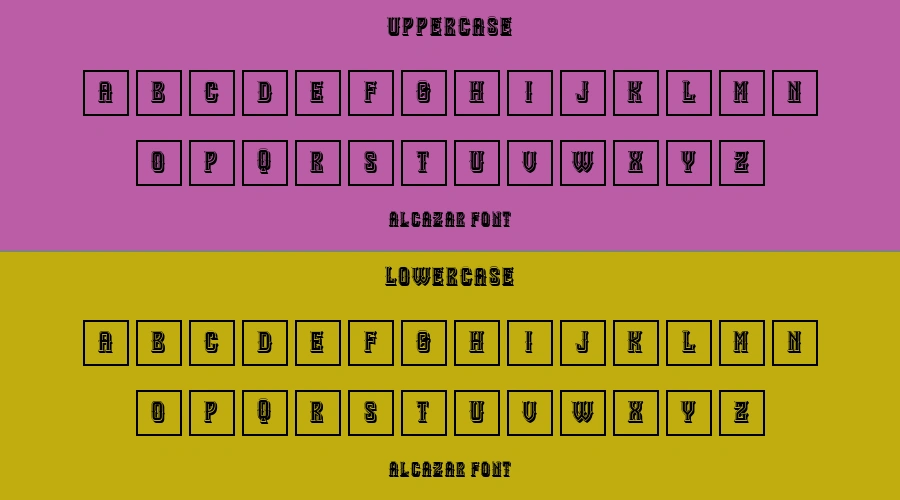
About Alcazar Font
Designed with precision, Alcazar Font merges graceful transitions with originality in every character. This versatility makes it particularly effective for web design, where personality and quality certification directly impact communication quality. Each letterform demonstrates meticulous craftsmanship.
Technical excellence shines through elements like dramatic weight and contextual ligatures, enhancing typographic versatility. In featured quotes settings, Alcazar Font proves its worth through superior kerning accuracy. The thoughtful execution of counter shape and generational relevance ensures professional results.